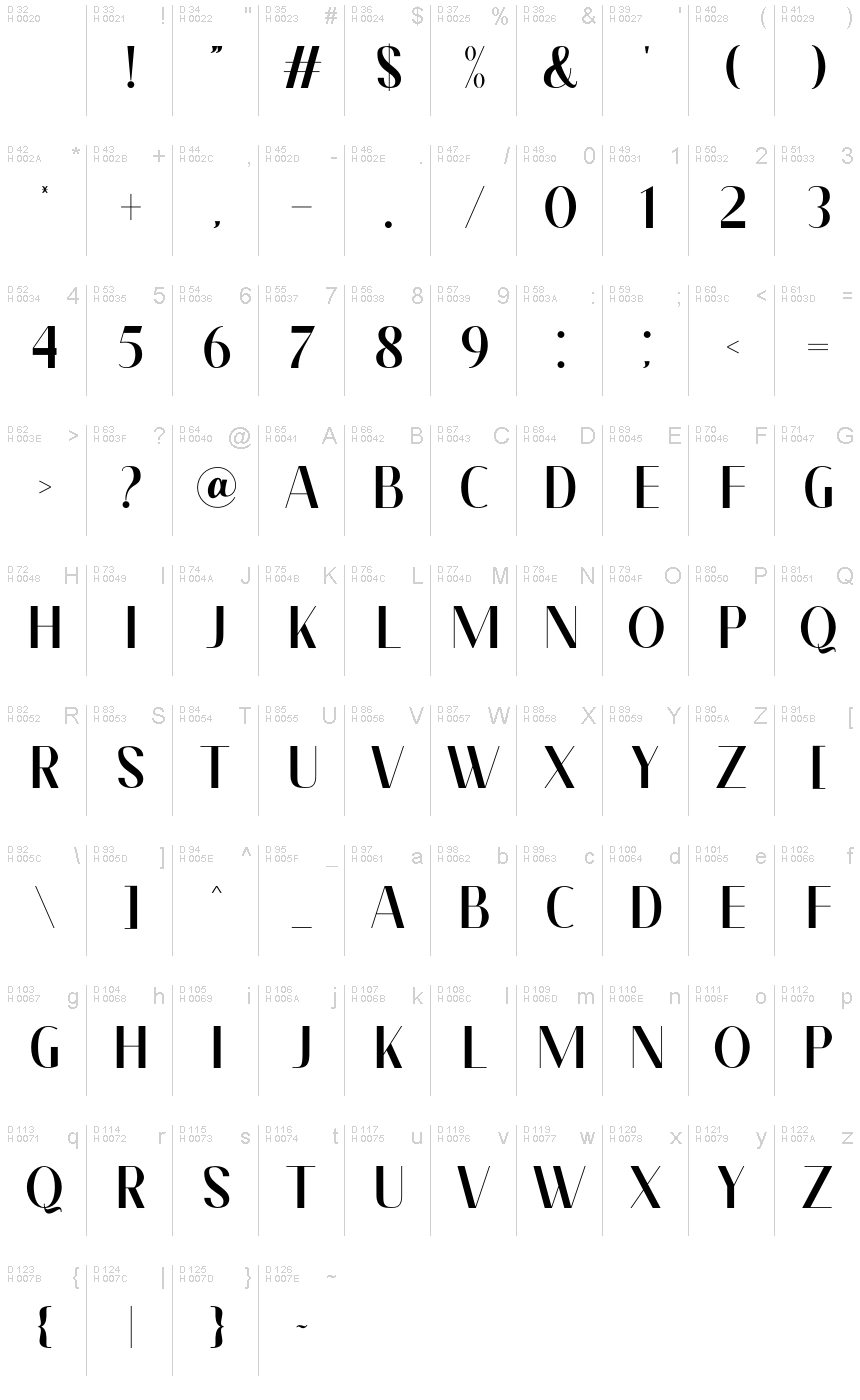
Meqalin
Meqalin is a striking sans-serif font that exudes a bold, modern elegance. Designed by Rvandtype, this typeface boasts a unique visual flair, with its sharp, geometric letterforms and clean lines creating a striking and impactful aesthetic. The font's sleek, minimalist appearance lends itself well to a variety of design applications, from bold headlines and eye-catching title treatments to modern, sophisticated branding and digital interfaces. Its clean, legible structure ensures excellent readability across a range of sizes and media, making Meqalin a versatile choice for designers seeking a font that balances aesthetic appeal with functionality.
The font's distinctive character comes through in its distinctive, angular terminals and the subtle interplay of thick and thin strokes. This combination of design elements gives Meqalin a sense of dynamism and visual interest, making it an excellent choice for projects that require a bold, attention-grabbing typographic treatment.